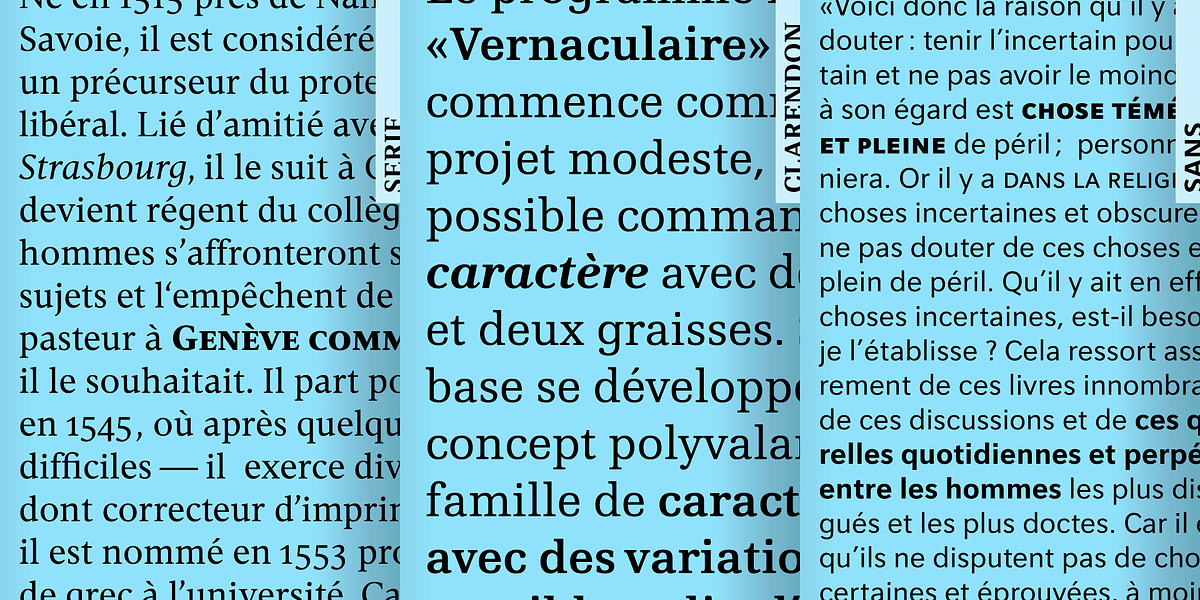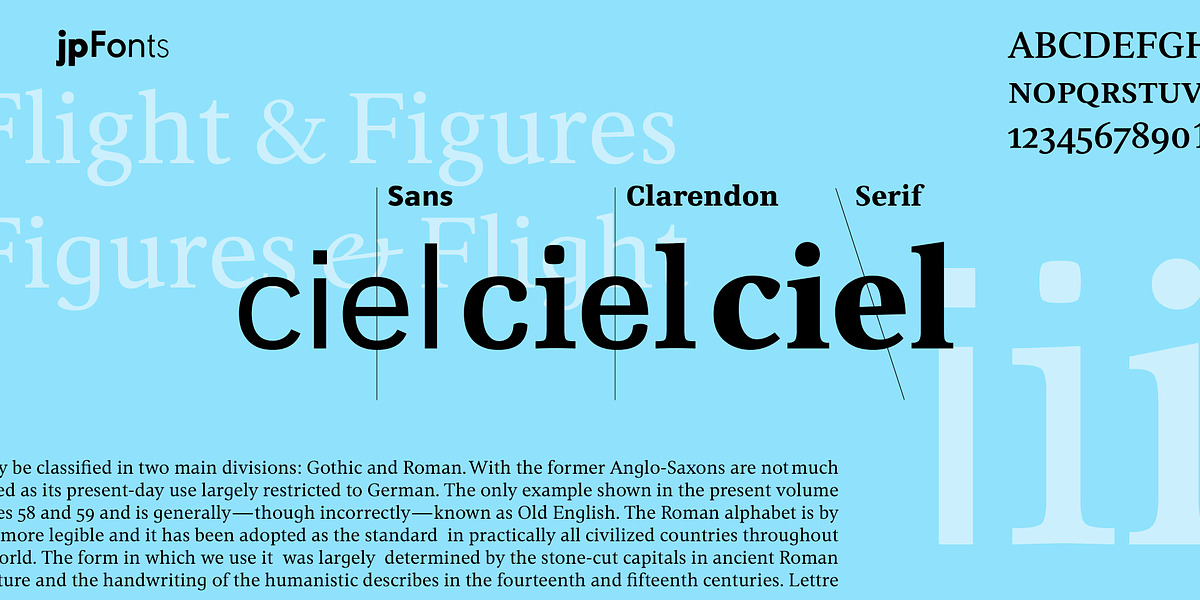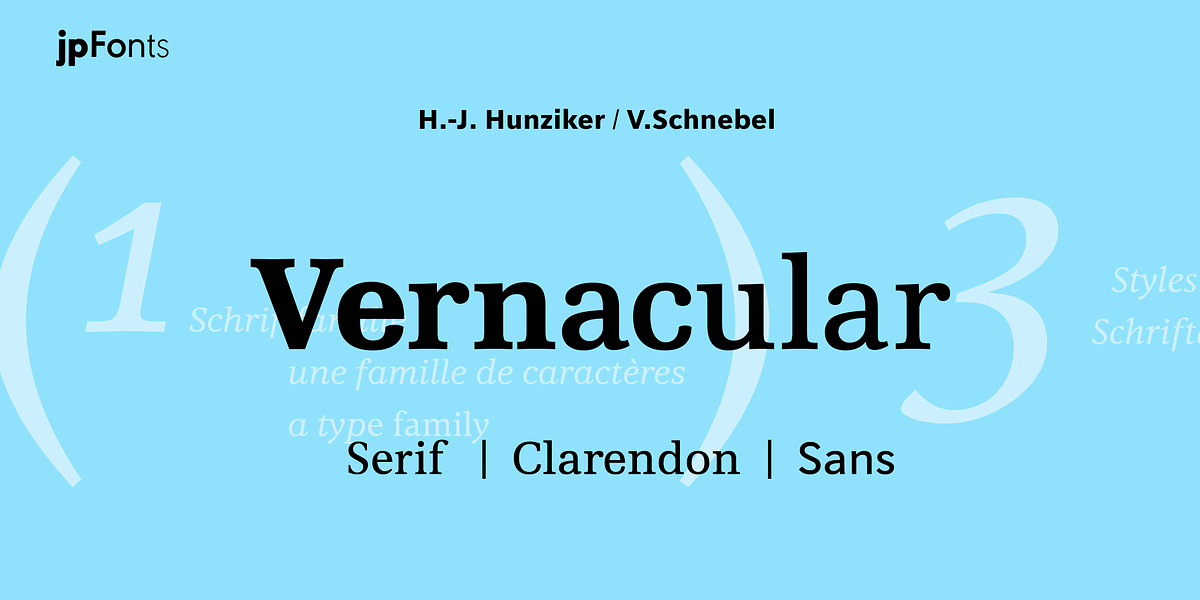
Vernacular Sans
This humanist sans serif font is characterized by its straight stems and vertical axis. The designer aimed to create a typeface that felt modern yet approachable, suitable for both corporate branding and extended text passages.